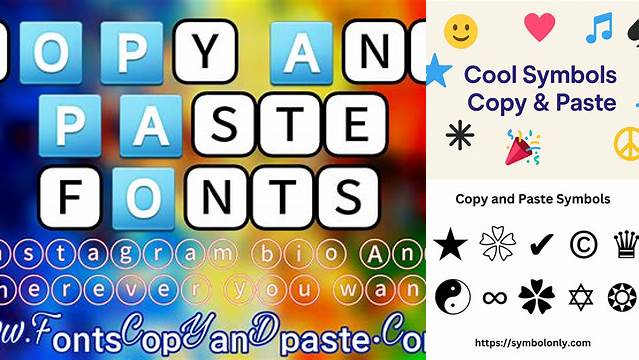
Cool Fonts: Copy & Paste Symbols For Stylish Text
Hey guys! Ever wanted to spice up your text game? You know, make your social media posts, your messages, or even your documents stand out from the crowd? Well, you've come to the right place! We're diving headfirst into the world of fancy fonts and how to copy and paste symbols to achieve that extra oomph. Forget boring old Times New Roman! We're talking about turning your words into works of art, all with a simple copy and paste. It's like having a secret weapon in your digital arsenal. Think about it: You can express yourself in ways that plain text just can't. You can grab attention, convey emotions, and even add a touch of your personality to everything you write. This isn't just about aesthetics; it's about communication. It's about making sure your words are seen, understood, and remembered. And the best part? It's super easy! Let's get started and unlock the power of fancy fonts and symbols together. Get ready to transform your text into something truly extraordinary. No coding knowledge required, just pure, unadulterated style.
Unleashing the Magic: Understanding Fancy Fonts
So, what exactly are fancy fonts? They're essentially fonts that go beyond the standard set. They are designed to be eye-catching, creative, and often, a little bit quirky. They can include everything from elegant calligraphy styles to bold, modern designs, and even fonts filled with unique symbols and characters. The beauty of fancy fonts lies in their versatility. They can be used in a variety of contexts, from social media captions and profile names to graphic design projects and even personal notes. Unlike standard fonts, fancy fonts often have a distinct personality. They can evoke specific emotions, convey a particular mood, or simply add a touch of flair to your text. For example, a script font might suggest elegance and sophistication, while a bold, blocky font could convey strength and confidence. These fonts allow you to communicate more than just the words themselves; they let you communicate the feeling behind them. Imagine writing a birthday message with a font that looks like it was handwritten with a beautiful pen. Or creating a logo using a font that perfectly captures the essence of your brand. When choosing a fancy font, it's important to consider your audience, your message, and the overall tone you want to create. Think about what you want to communicate and then choose a font that reflects that. Remember, the right font can make all the difference in how your message is received. It is important to note that, these are not the fonts you install on your computer, but rather are created by using a font generator.
Exploring Different Styles of Fancy Fonts
Let's dive into the exciting world of fancy fonts and explore the different styles available. There's a whole universe of fonts out there, each with its unique character and charm. First, there's the elegant world of script fonts. These fonts mimic handwriting, often featuring flowing lines and graceful curves. They're perfect for invitations, quotes, or anything that needs a touch of sophistication. Next up are the bold and modern fonts. These fonts are all about making a statement. They can be used for headlines, titles, or anywhere you want to grab attention. Then we have the decorative fonts. These fonts are all about fun and creativity, often incorporating symbols, patterns, and unique designs. They're great for social media posts, greetings, or anything that needs a playful touch. Beyond these, there are other fonts that are used like monospace fonts and monospace-like fonts. When we go further, you can also find other fonts such as the old English, and even fonts that can be used for special circumstances. Think of it like choosing clothes for your text. Do you want to go classy with a script font? Or bold with a modern one? Or perhaps fun and colorful with a decorative font? The options are limitless, and the possibilities are endless. The beauty of using different styles of fancy fonts is that they add a unique touch to your writing. You're not just writing words; you're creating a visual experience. You're making your words pop and grab attention. It's a simple way to express yourself, to add personality, and to make your writing stand out.
The Role of Symbols in Enhancing Text
Now, let's talk about symbols. These little characters can add so much to your text, and you can copy and paste symbols into your writing for different purposes. Symbols are more than just pretty faces; they are a powerful tool for enhancing the meaning and impact of your words. Firstly, they can add visual interest. A well-placed symbol can break up a long block of text and draw the reader's eye. Secondly, symbols can convey emotions and ideas. A heart symbol can express love, a star can indicate importance, and an exclamation point can add emphasis. These symbols are the unspoken language of the digital age, and they can be used to add depth and nuance to your writing. They can also make your writing more engaging and memorable. When you use symbols, you're not just writing words; you're creating a visual experience that keeps the reader interested. It's like adding a sprinkle of magic to your text! And the best part? Using symbols is incredibly easy. You don't need any special software or technical skills. It's as simple as finding the symbol you want and copying and pasting it into your text. The use of symbols is not limited to personal use; they can be used professionally to create an environment that is more creative and engaging. For instance, consider using a checkmark for a list, or other symbols to indicate direction.
Mastering the Art: Copy and Paste Fancy Fonts
Alright, let's get to the fun part: how to copy and paste fancy fonts and symbols! It's incredibly easy, I promise. There are no complicated steps or technical jargon. First, you'll need to find a fancy font generator. There are tons of free online tools that allow you to type in your text and then convert it into a variety of fancy fonts. Once you have the text, you'll see different styles. Choose the one you like best. Now, simply highlight the text you want to use, then click the copy option (usually by right-clicking and selecting